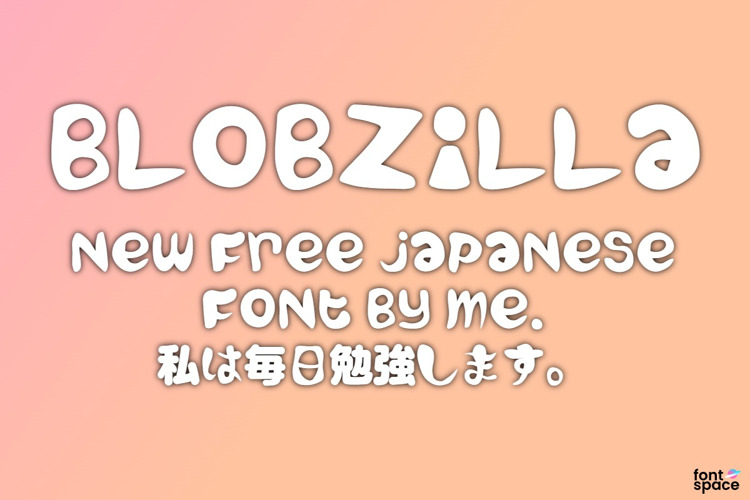
Blobzilla Font
After almost 5 years of release, it is finally time! Blobzilla is a Japanese font that I made back in 2020. It's blobby, it's rounded and it's friendly!